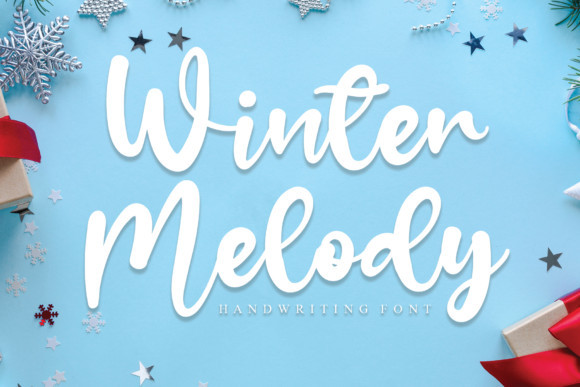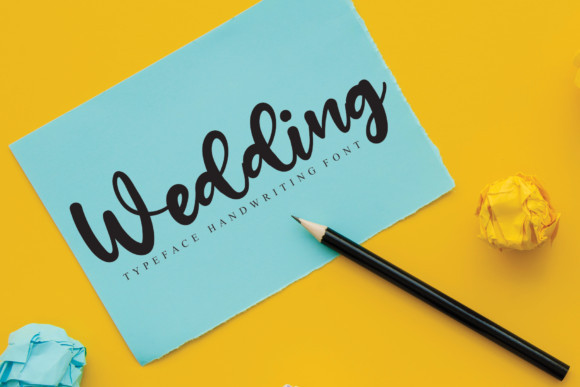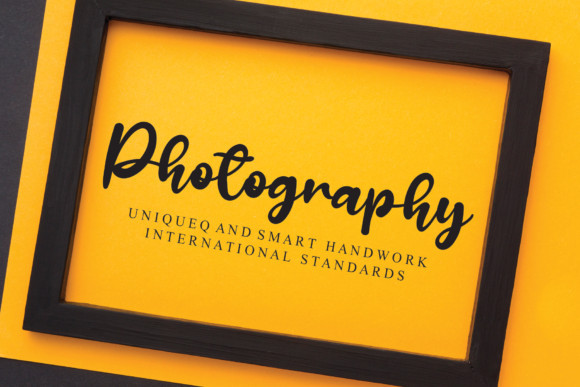
Winter Melody Font
Winter Melody is a fun and flowing handwritten font. It is the best choice for creating eye catching logos, branding and quotes. Every letter has a unique and beautiful touch, which will make your design come alive!